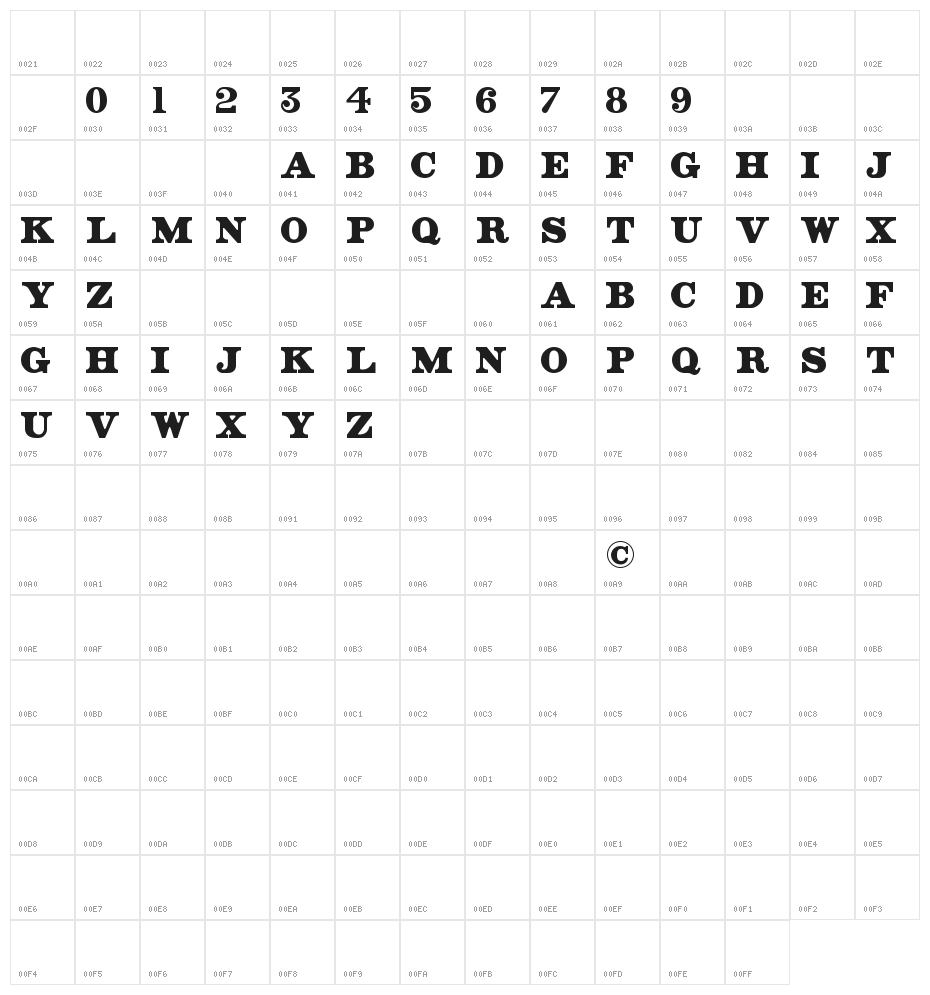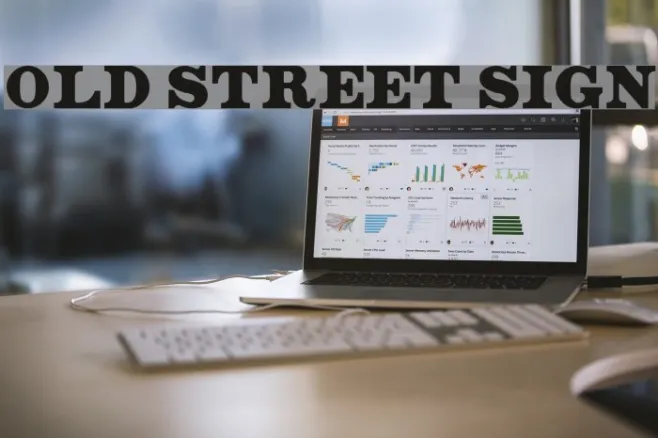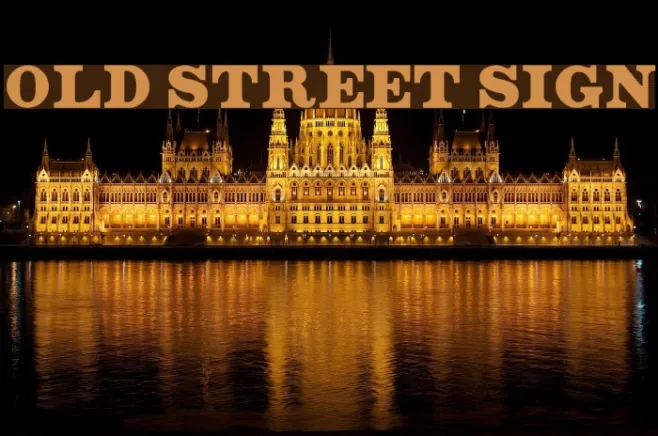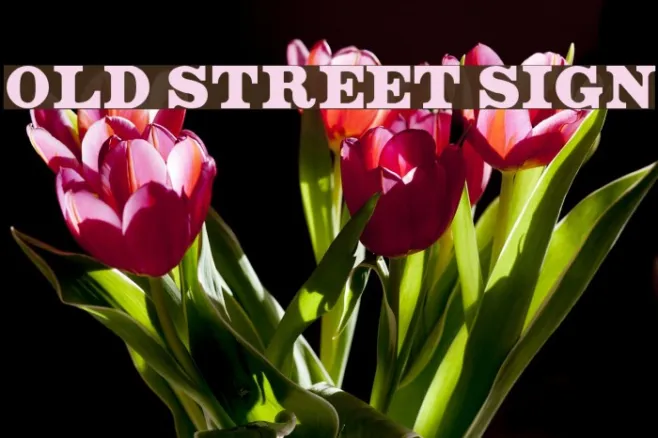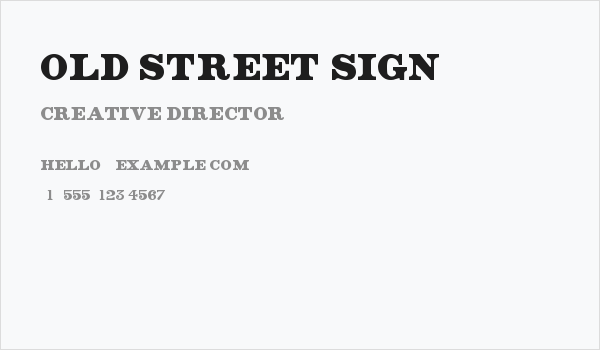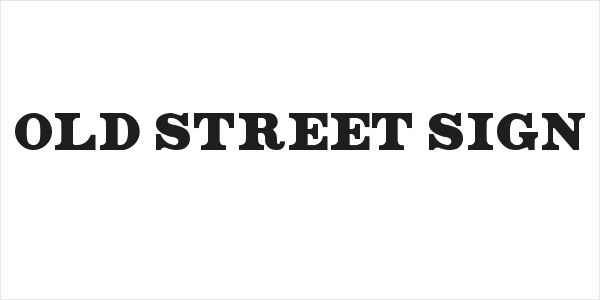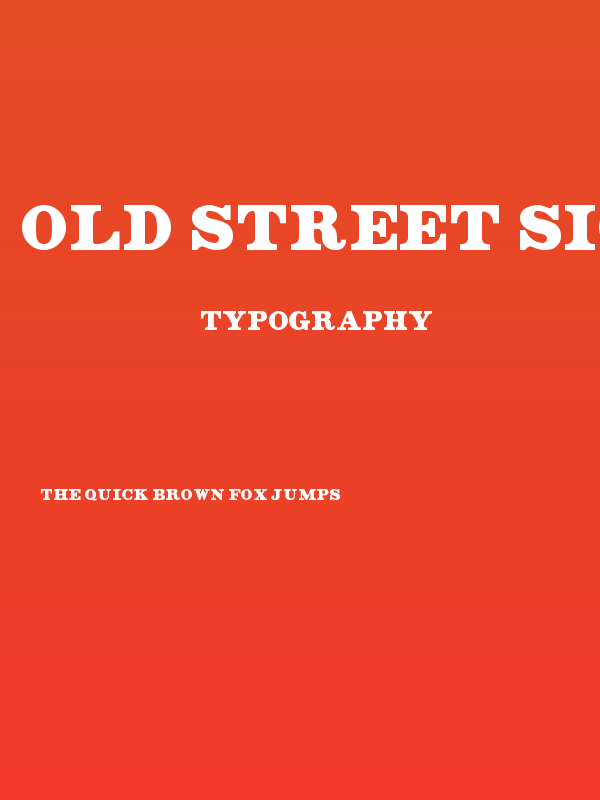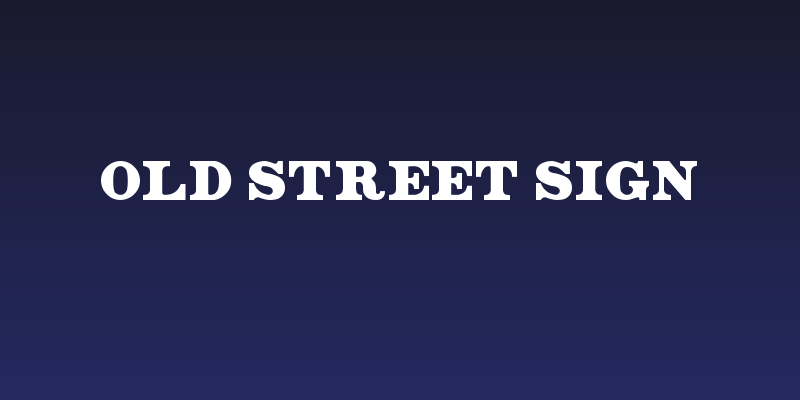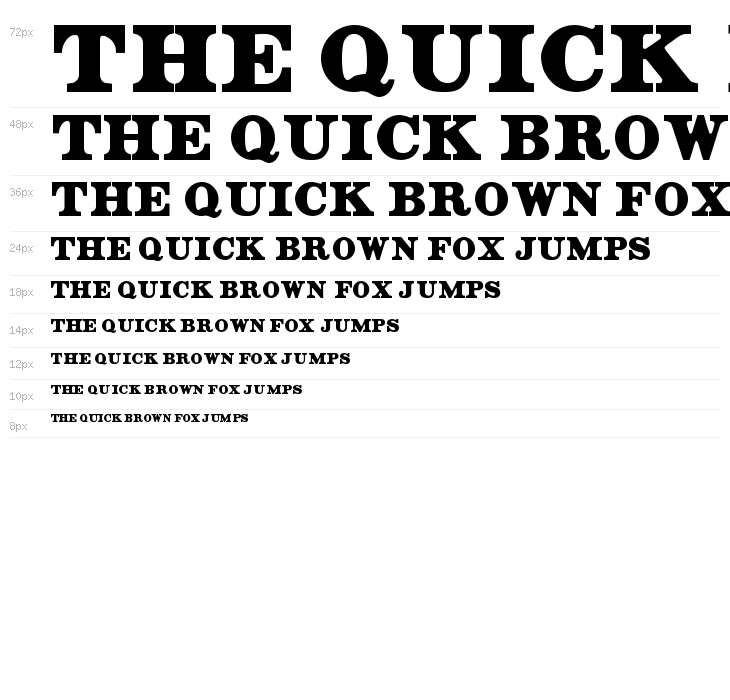
Old Street Sign Font
Old Street Sign Description
This font exudes a classic and bold presence, reminiscent of traditional street signage. The uppercase letters are robust and commanding, with thick strokes and pronounced serifs that give a sense of authority and permanence. The numerals are equally bold, featuring a distinctive style that ensures readability and impact. The overall design is consistent and balanced, making it suitable for conveying messages that require clarity and emphasis. The font's strong character and historical feel make it ideal for projects that aim to evoke a sense of nostalgia or timelessness.
| Use Case | Headlines, Signage, Branding |
| Proposed Projects | Ideal for vintage-themed designs, signage, posters, and branding that requires a classic touch. |